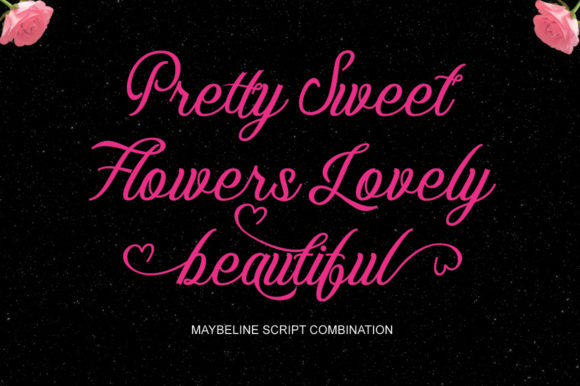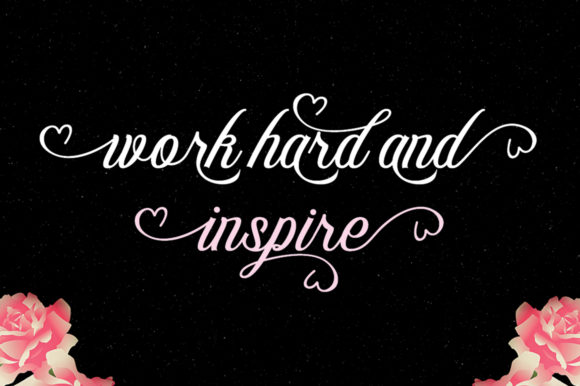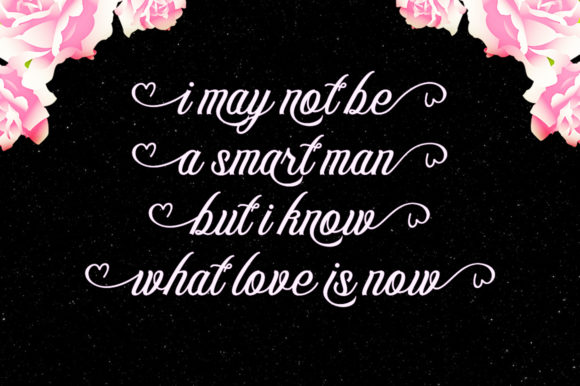
Introduction to Maybeline Font
Have you ever been working on a creative project, pouring your heart and soul into every detail, only to feel like something’s missing? That’s exactly how I felt when I stumbled upon the stunning Maybeline Font. Its bold swashes and elegant script style immediately caught my attention, and I knew I had to share it with the world.
As designers, we’re constantly on the lookout for that special something that takes our designs to the next level. And that’s exactly what Maybeline Font offers. With its high-quality design and transparent background, this font is a valuable resource for any creative project. Whether you’re working on a logo, brochure, or website, Maybeline Font is sure to make your design stand out.
Key Features of Maybeline Font
- High-quality design resource for creative projects: Maybeline Font is a professional, well-designed font suitable for various applications, including graphic design, digital art, and publishing.
- Transparent background: This font features a transparent background, allowing designers to easily combine it with other design elements and create unique visual effects.
- Unique characteristics: Maybeline Font features a unique, modern design with clean lines and elegant typography, setting it apart from other fonts in its category.
- Perfect for digital and print projects: Maybeline Font is an excellent choice for designers working on both digital and print projects, thanks to its versatility and high-quality design.
Honest Review: Maybeline Font
I recently came across the Maybeline Font, and I must say it’s been a great addition to my design resource library. As a designer, I’m always on the lookout for high-quality fonts that can elevate my creative projects.
- ✨ Beautiful and elegant script font that’s perfect for weddings, invitations, and other special occasions.
- ✨ Highly legible and easy to read, making it a great choice for body text.
- ⚠️ The font doesn’t come with a transparent background, which can make it difficult to use with certain design elements.
- ⚠️ The font family is relatively small, so you may need to use a font stacking tool to achieve the desired look.
Overall, I’m really impressed with the Maybeline Font. While it has a few limitations, its beauty and legibility make it a great choice for any design project. I’d definitely recommend it to fellow designers looking for a high-quality font to add to their collection.
Maybeline Font is ideal for use in logos, social media graphics, presentations, reports, and more. Its versatility and high-quality design make it a popular choice among designers and non-designers alike.